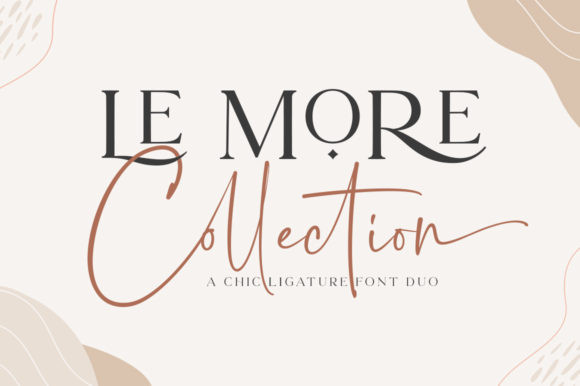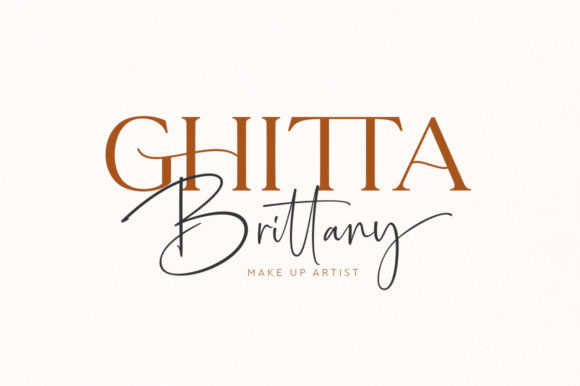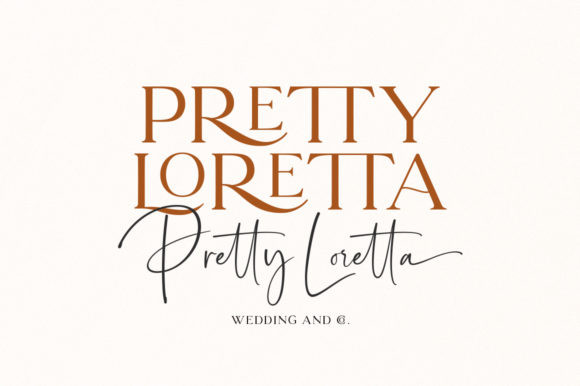
Le More Collection Font
Le More Collection is an incredibly elegant duo font (serif and script). Stylish and versatile, this font fits a wide pool of designs, elevating them to the highest levels. Add this font to your favorite creative ideas and notice how it makes them come alive!